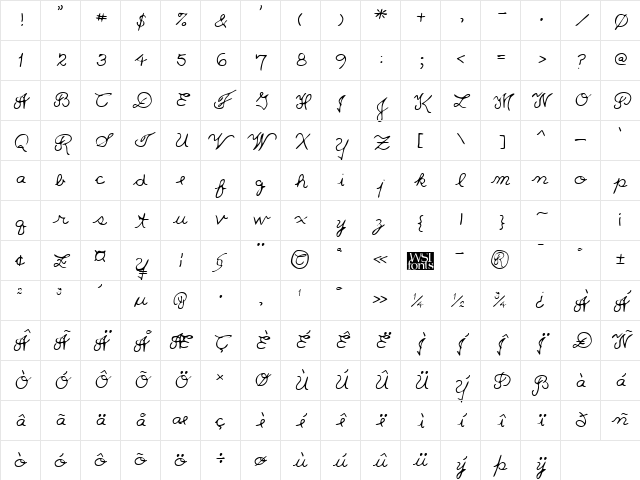
QuestsHand Regular
Design Context for QuestsHand
QuestsHand flows with the natural rhythm of handwritten lettering, making it ideal for designs that call for warmth and personal expression.
Font Pairing: Combine QuestsHand with a simple geometric sans for maximum contrast - the tension between flowing curves and clean structure is a classic typographic pairing.
Pro Tip: Use QuestsHand for short runs of text - names, titles, or taglines. Extended body copy in script faces tires the eye quickly.